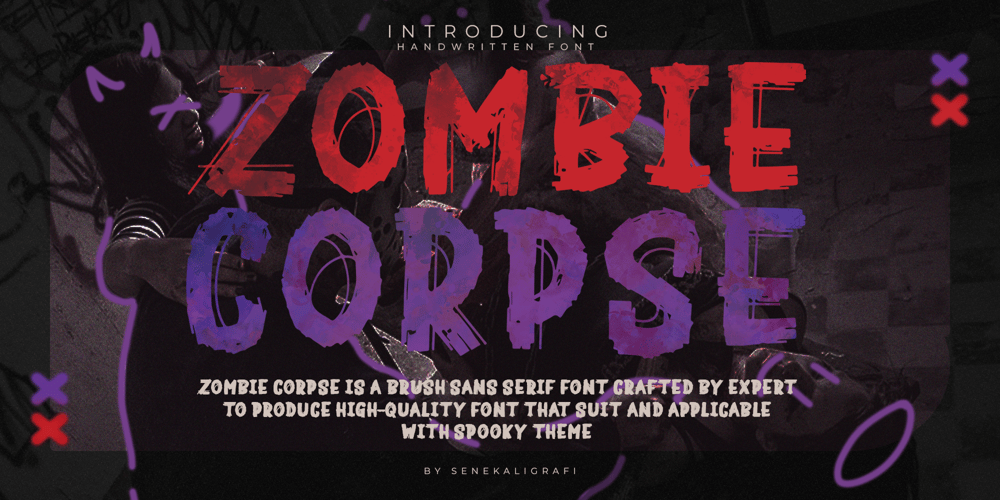
Zombie Corpse
Zombie Corpse font
Zombie Corpse Font Family was designed by Muhammad Helmi and published by Senekaligrafika. Zombie Corpse contains 1 styles and family package options. “ZOMBIE CORPSE” Has hard strokes and a signature styles that speak to instant nightmare sensations,it was inspired by horror and thriller movie posters.“ZOMBIE CORPSE” will help you to create special and touching typographical design for your highway and streetwear projects, for branding, labeling, clothing, movie title, album cover, logos and many more.It is really universal and modern font.The owner of endless possibilities!